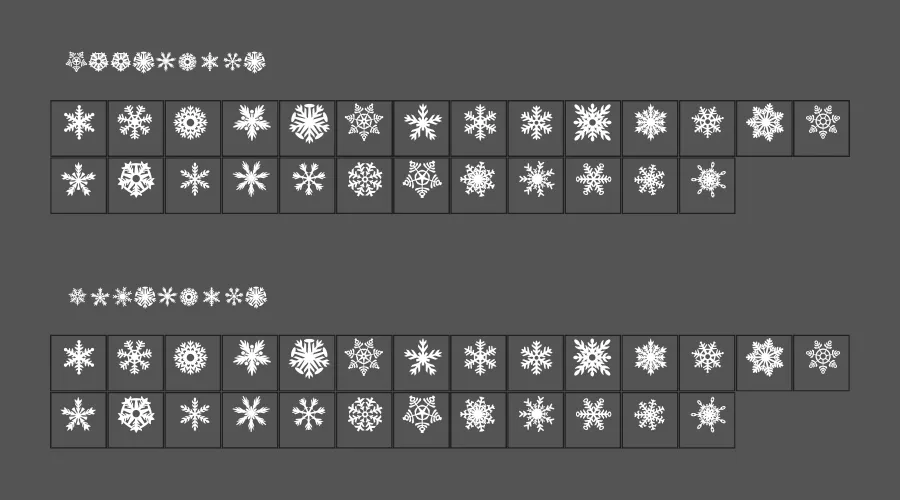
About Snowflake Assortment Font
Gerald Gallo designed Snowflake Assortment Font which belongs to the Dingbats category. It has symbols, there are no uppercase and lowercase characters.
The text style can give your design a more attractive and beautiful look. This font's smooth and elegant appearance works well on all computer displays. It is helpful for many designers who want to produce graphics with effectiveness.